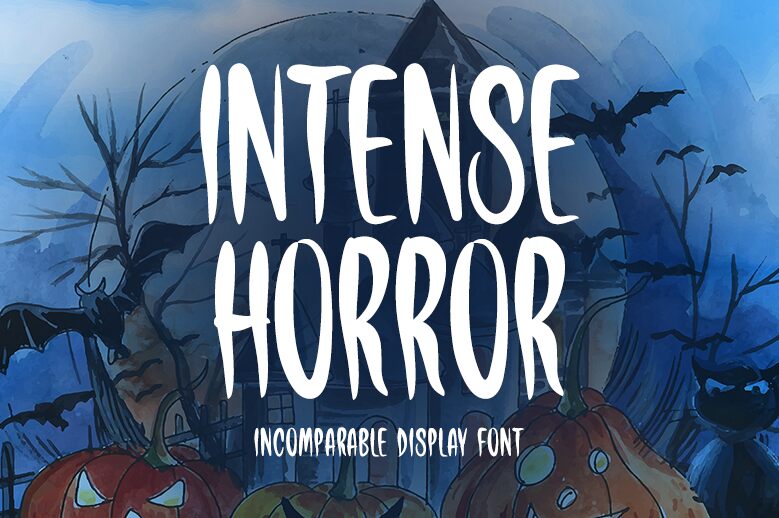
Intense Horror, designed by Md Shohail Bhuian, is a cute and casual holiday font that embodies the spookiness of Halloween. With its semi-light weight and extra-condensed width, this display font adds a playful touch to any project.
Whether you're designing invitations for a costume party or creating spooky social media graphics, Intense Horror will make your creative ideas stand out. Its unique style captures the essence of Halloween, making it perfect for haunted house flyers, eerie movie posters, or even wickedly fun children's book covers.
Let Intense Horror bring some frightful fun to your design projects!